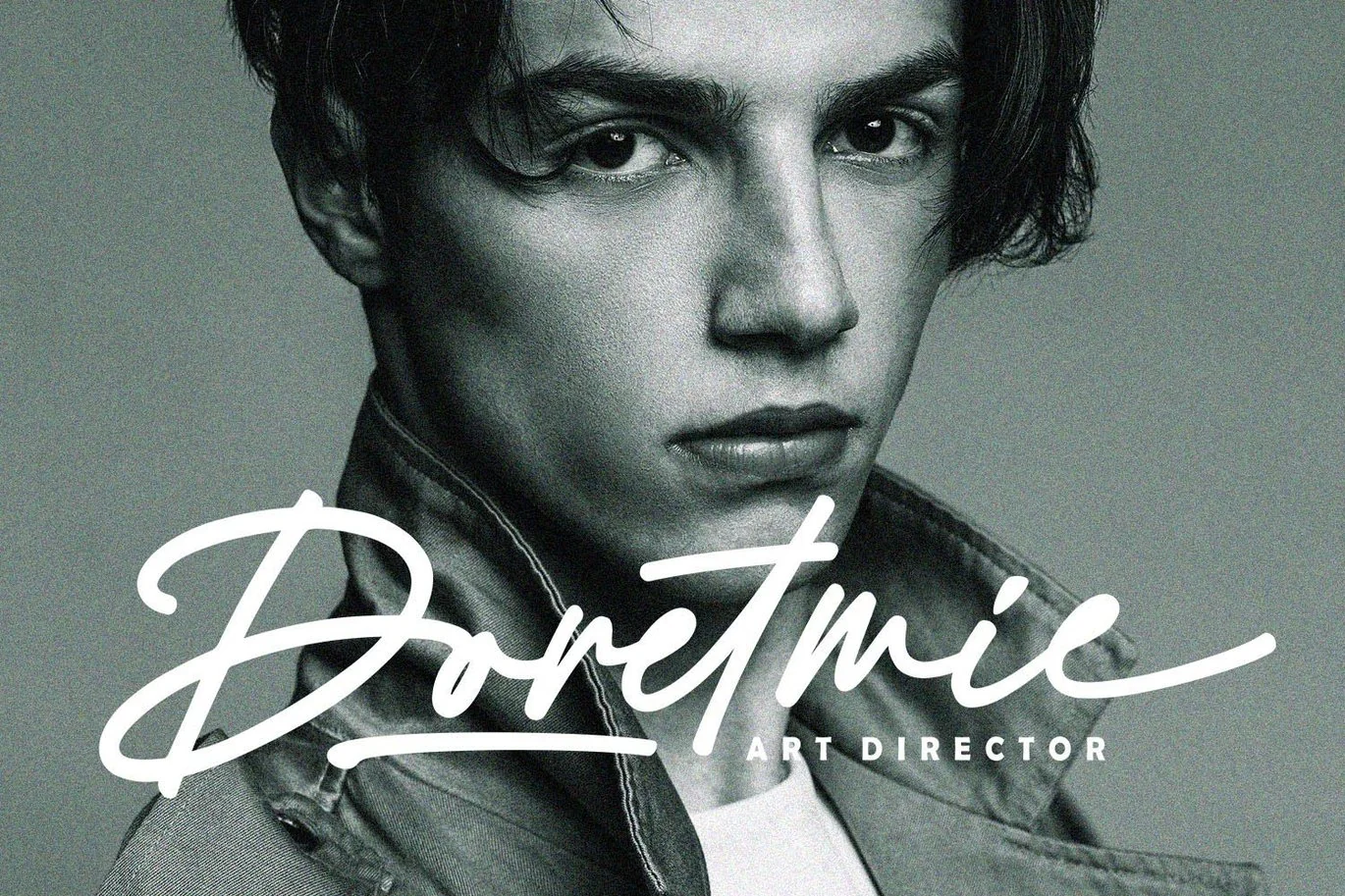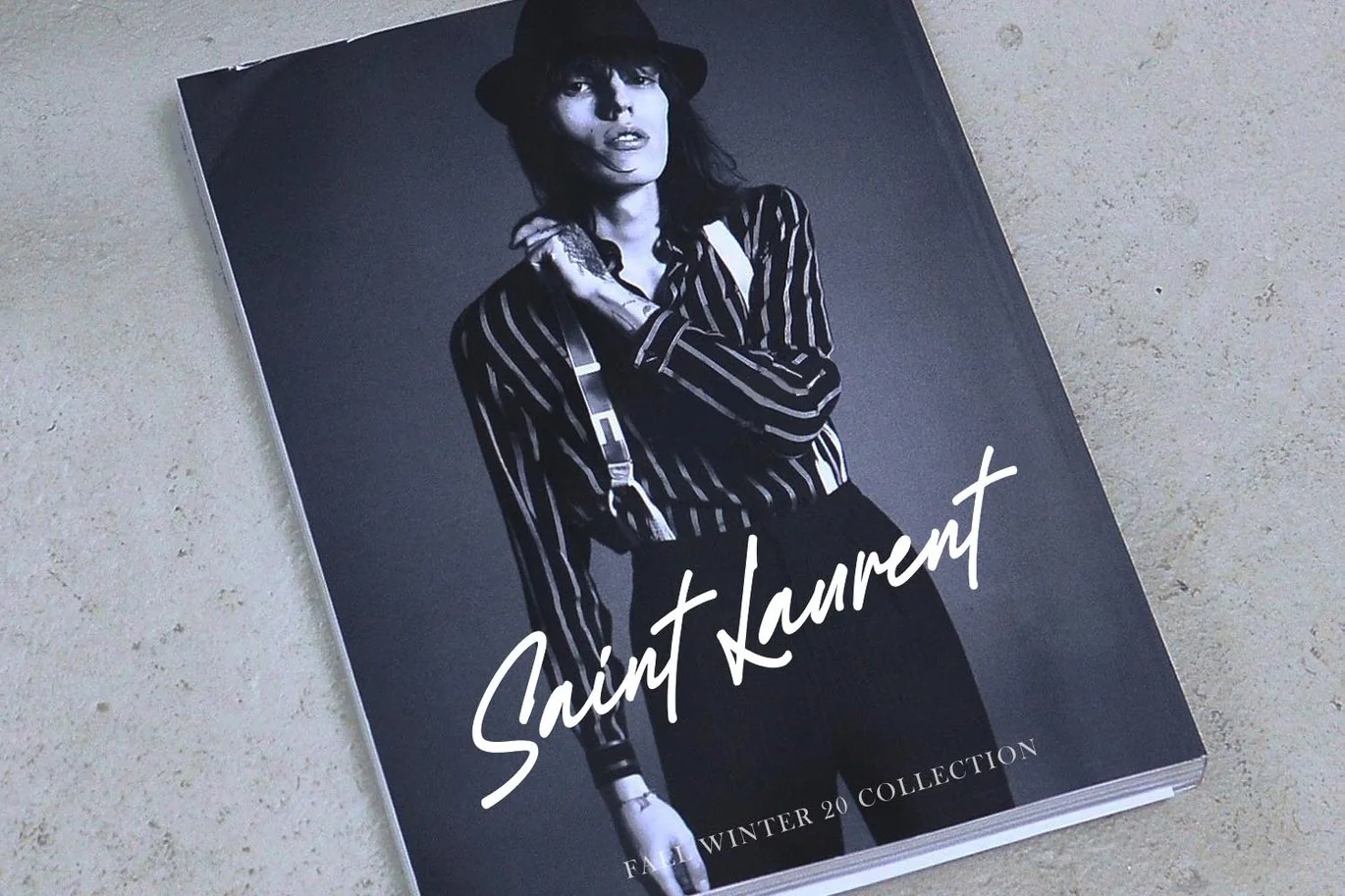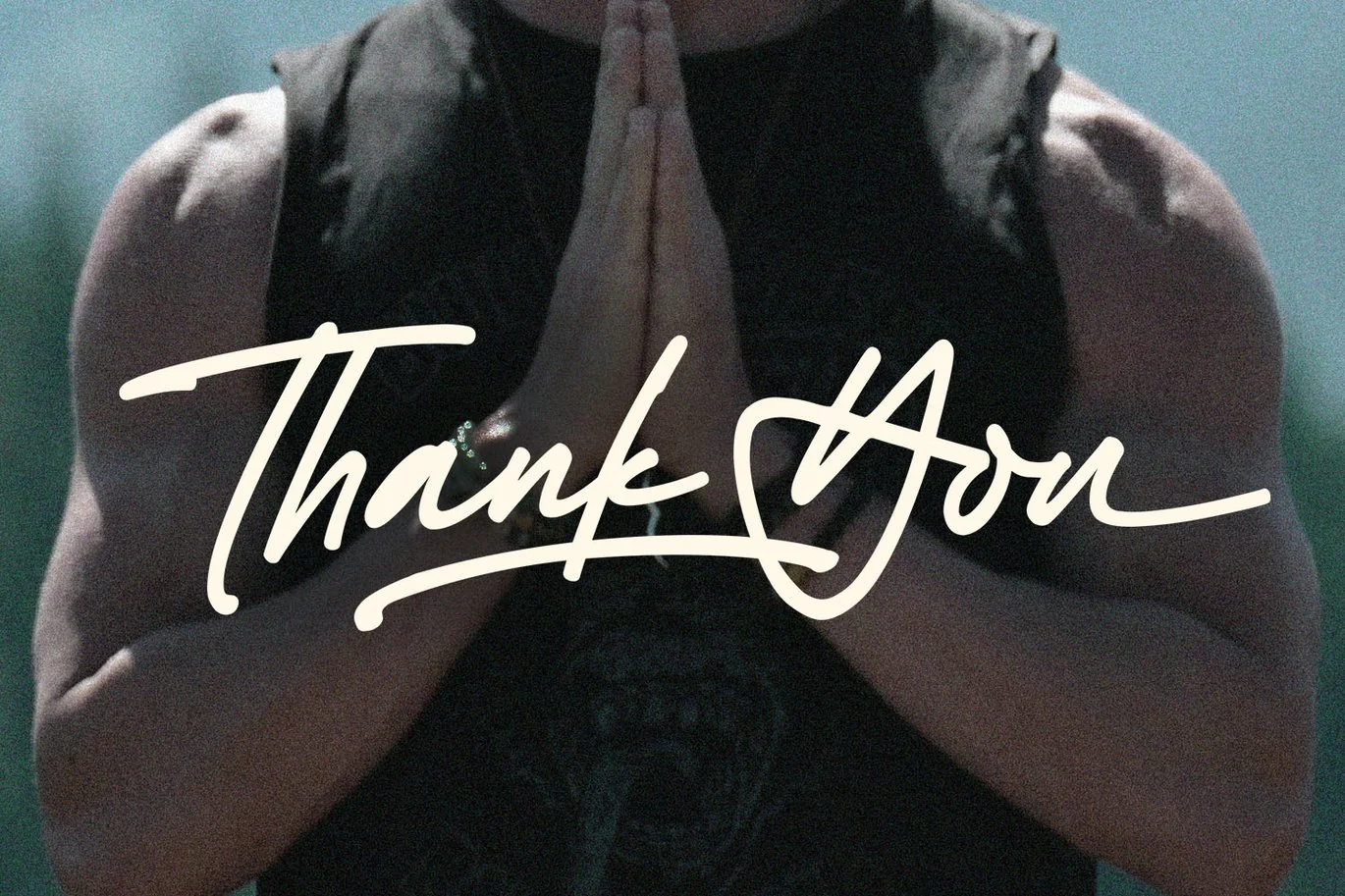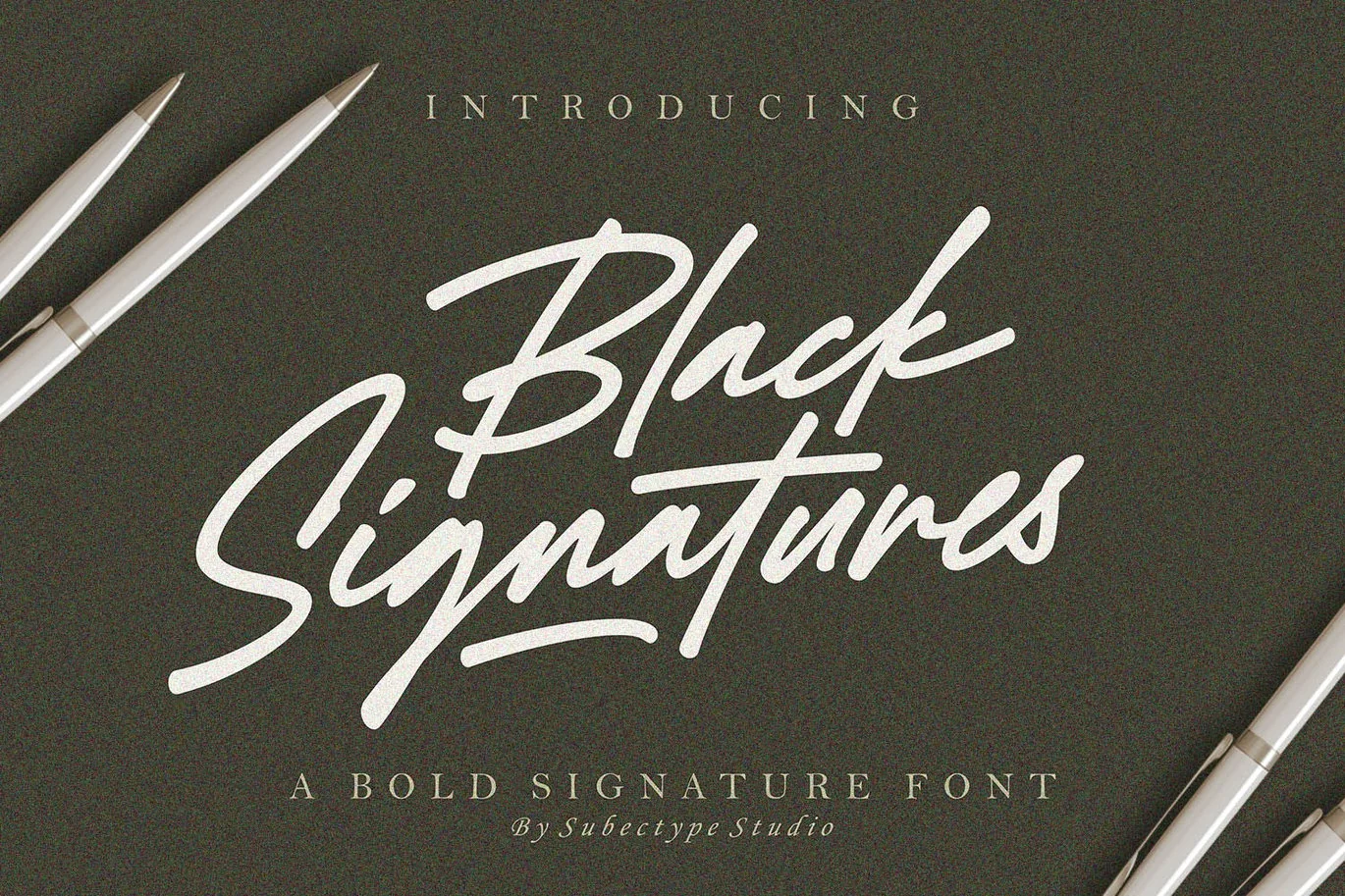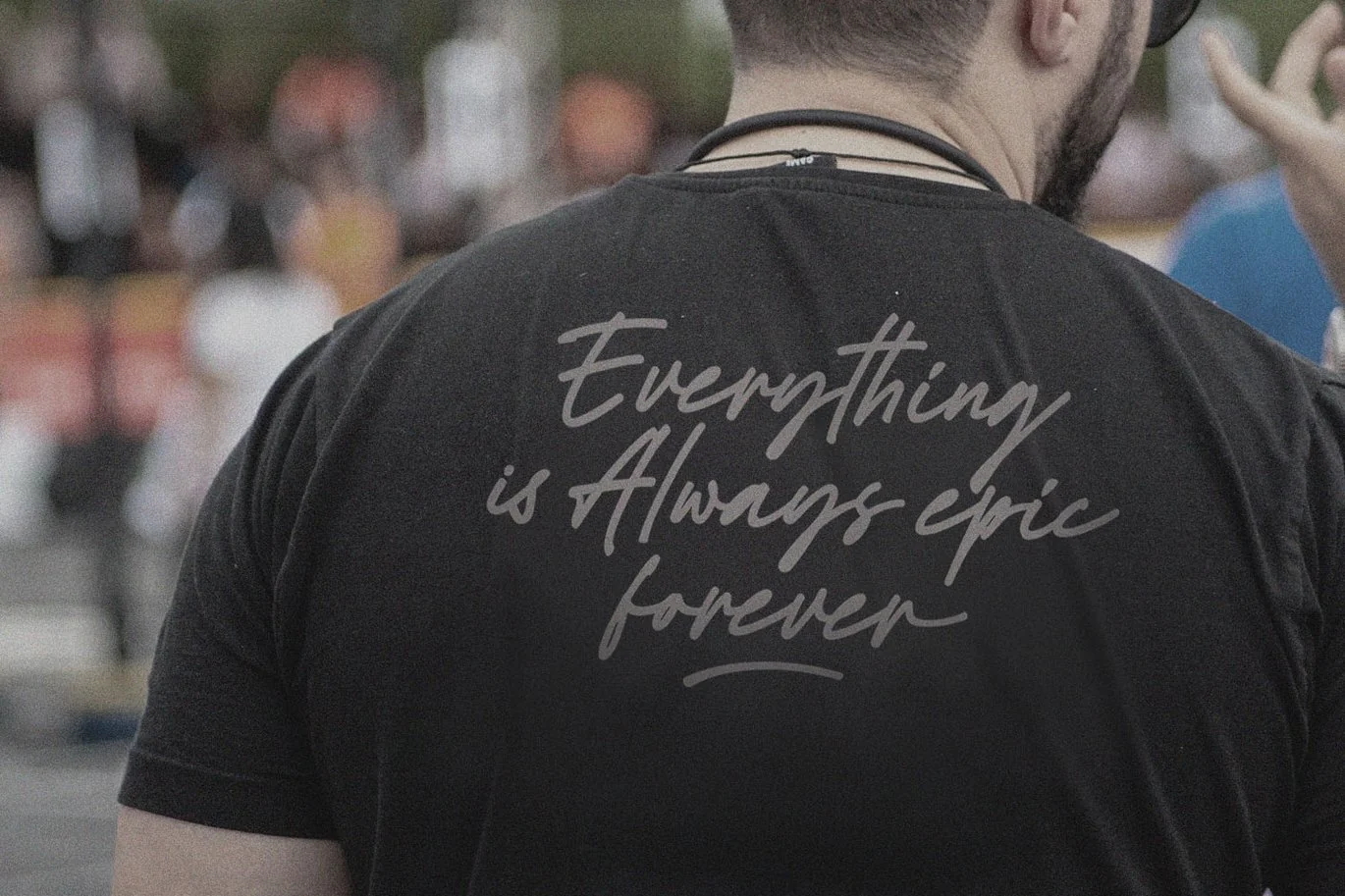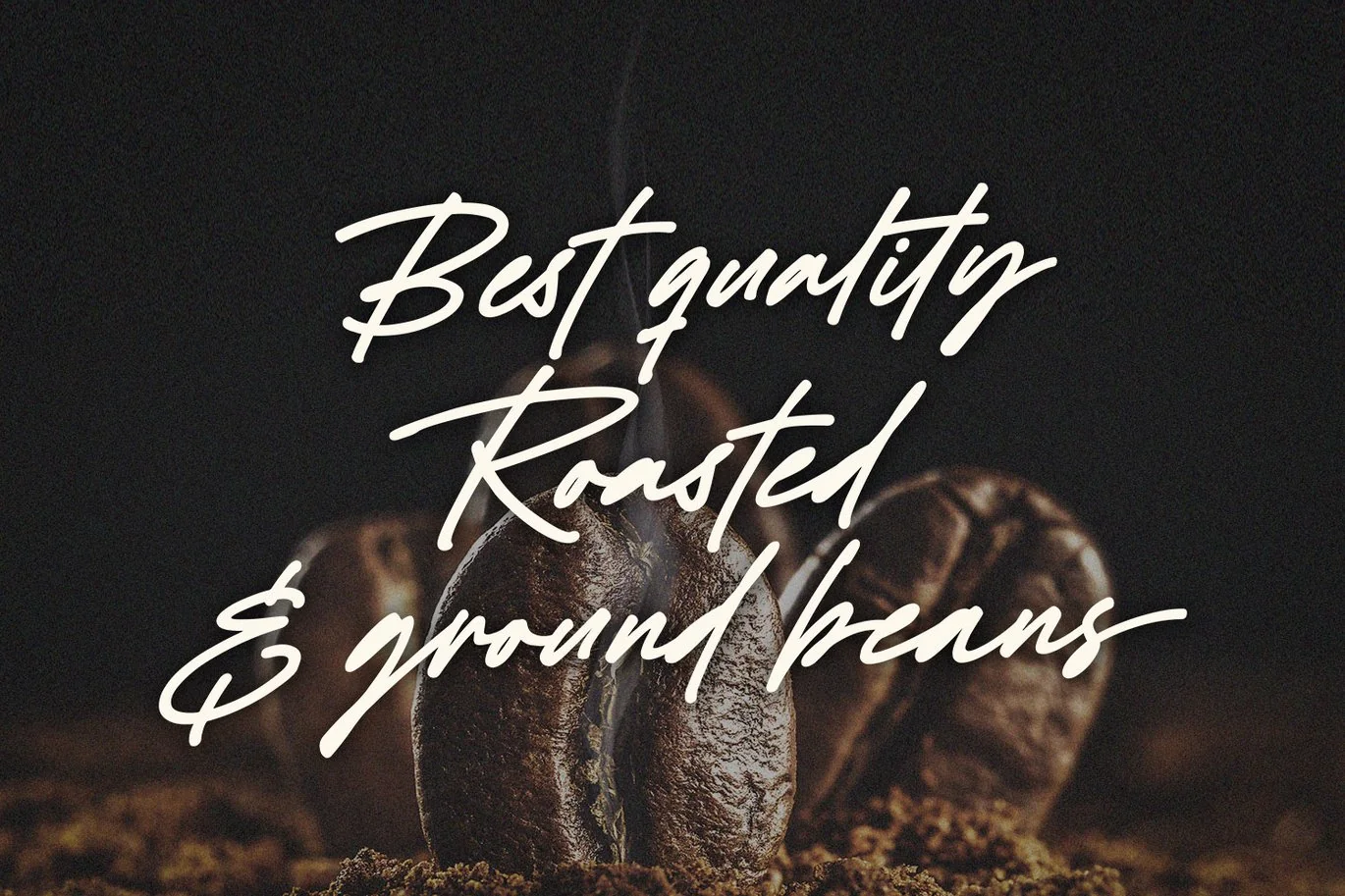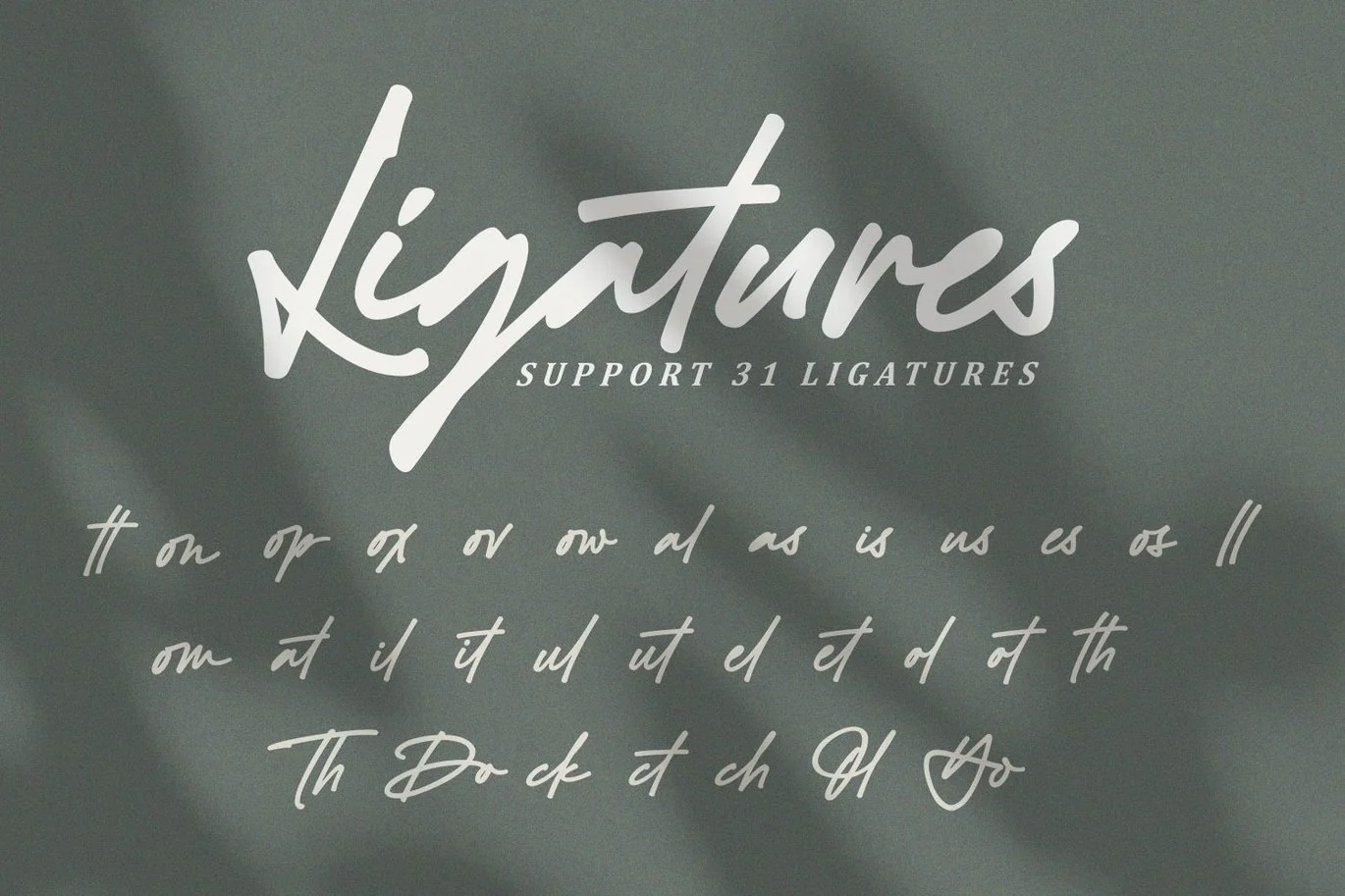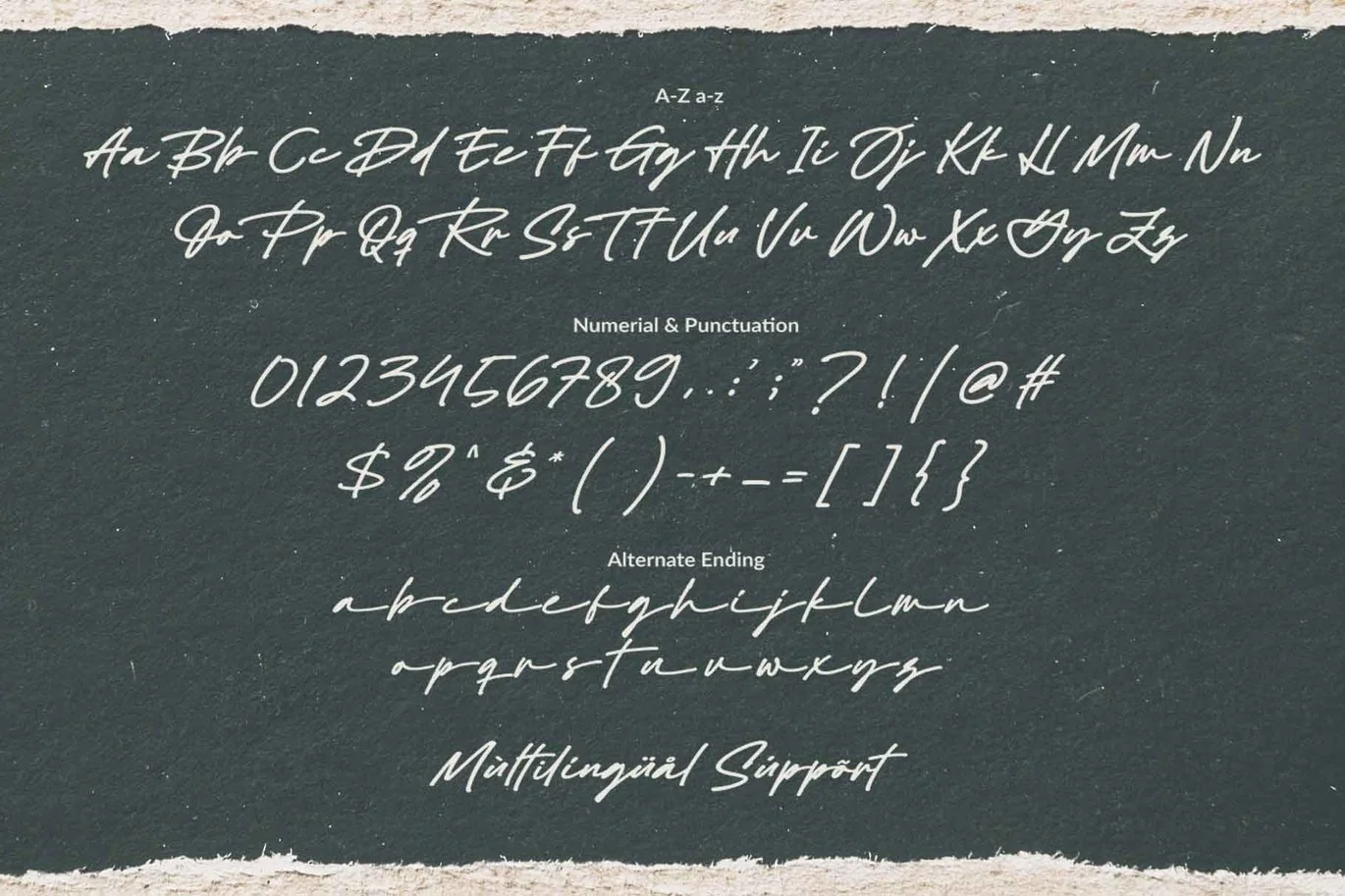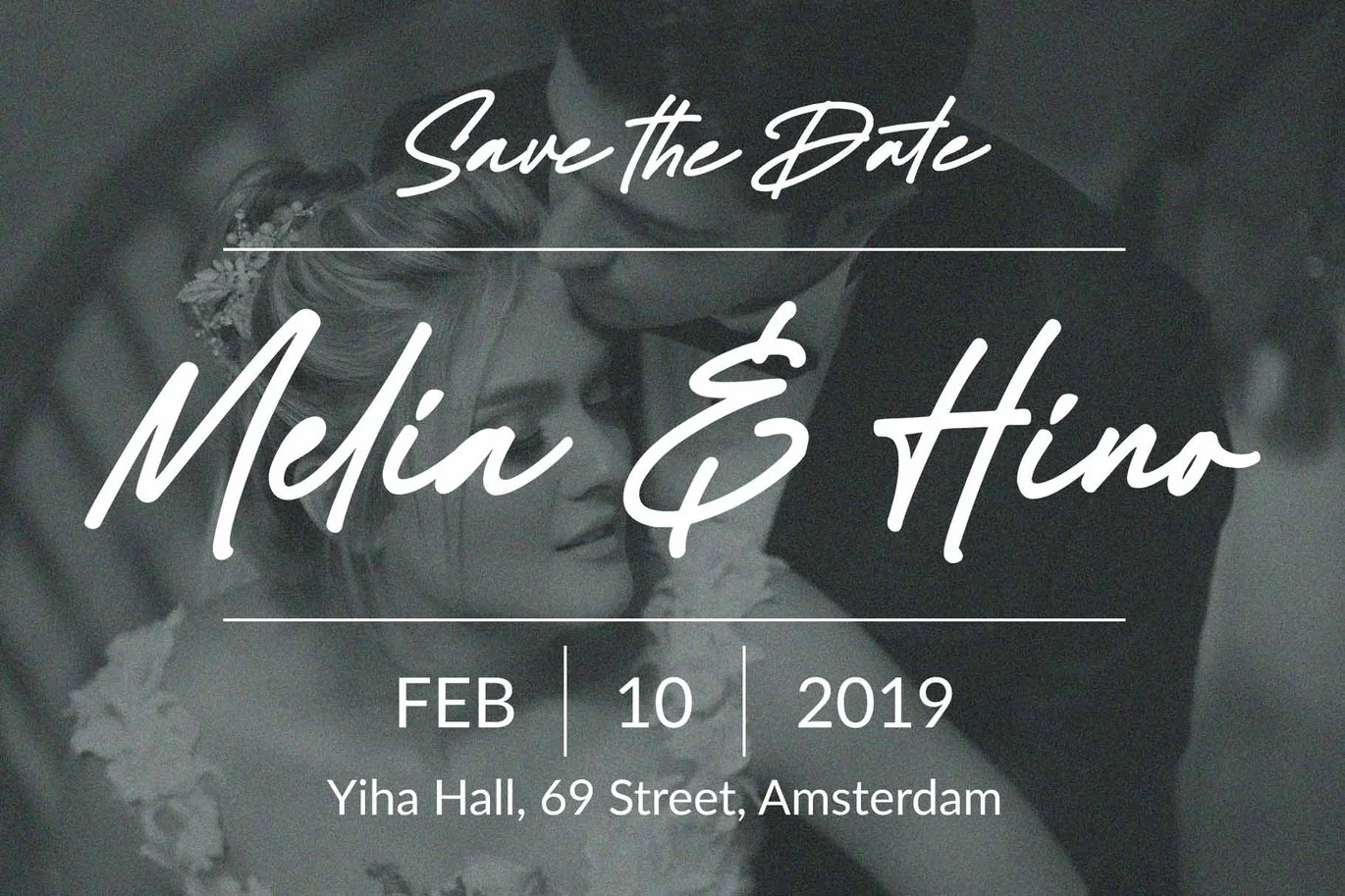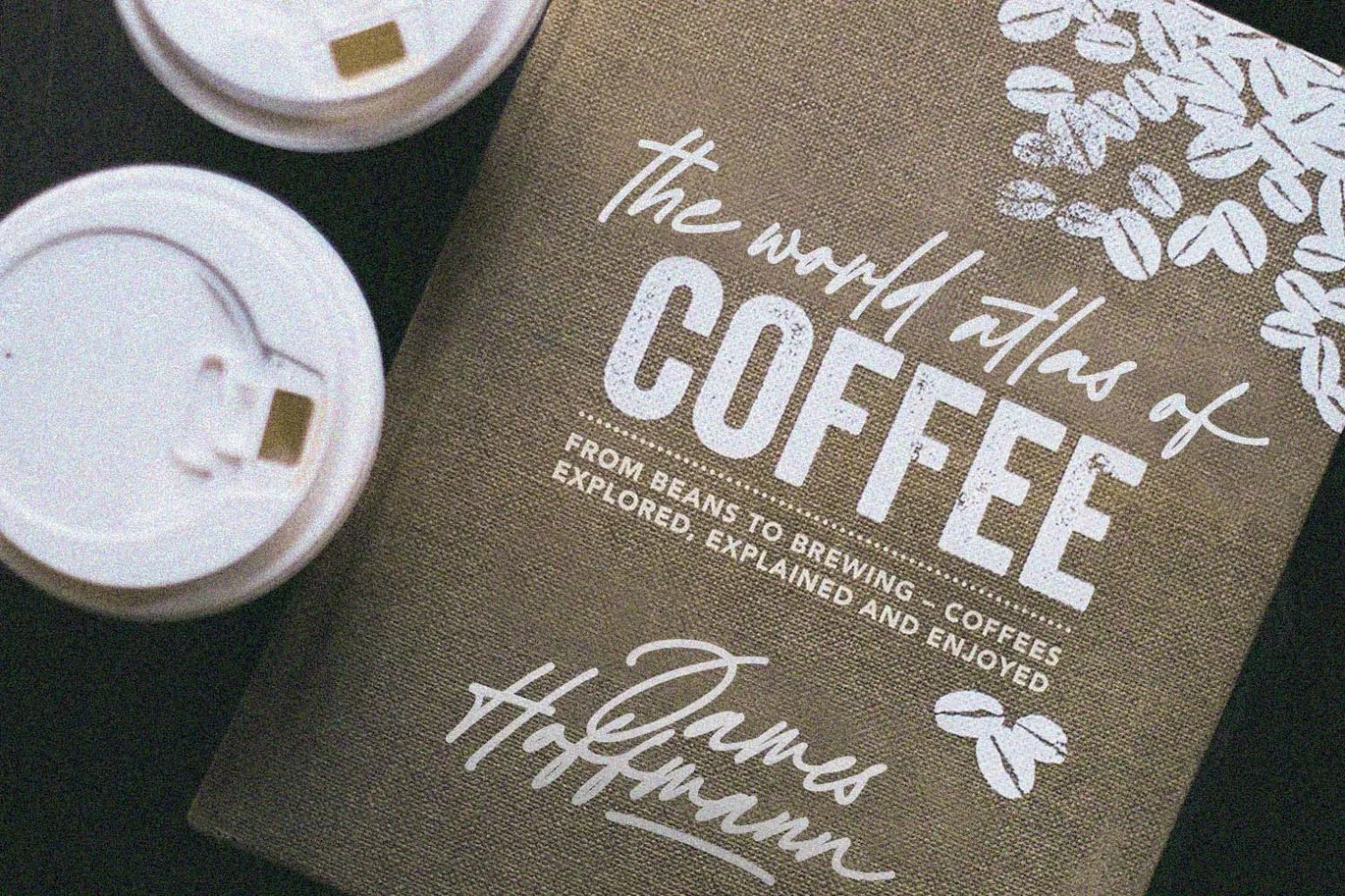
Black Signatures – Signature Font
Golden Hopes is a modern signature font with with a touch of handwriting style. this font is perfect for creating signature logos and watermarks for photography studio or wedding invitation.
Golden Hopes includes full set of beautifull hand lettered uppercase and lowercase letters, numerals, a large range of punctuation and many beautiful ligatures.
it has an extensive lingual support, covering European and Asian Latin scripts. The font contains all characters you’ll ever need, including all punctuation and numbers.